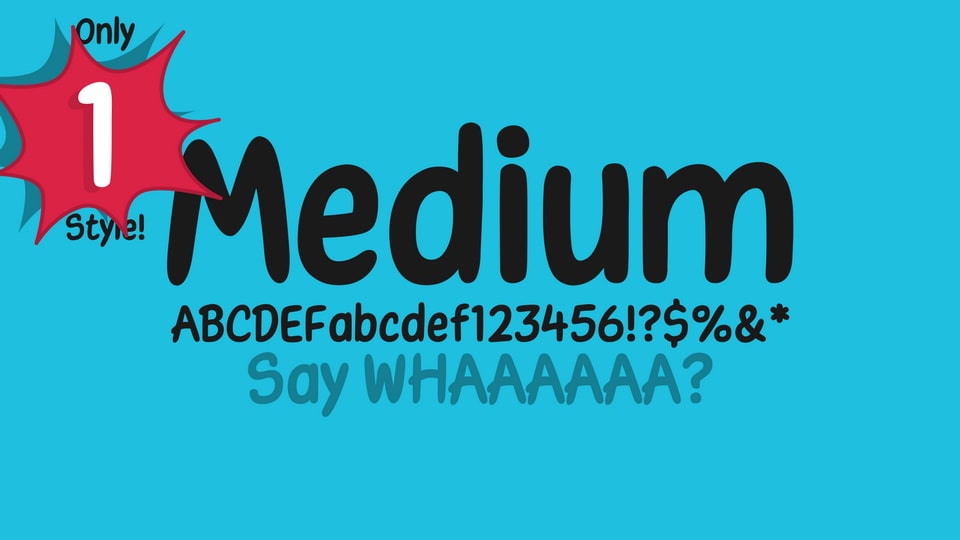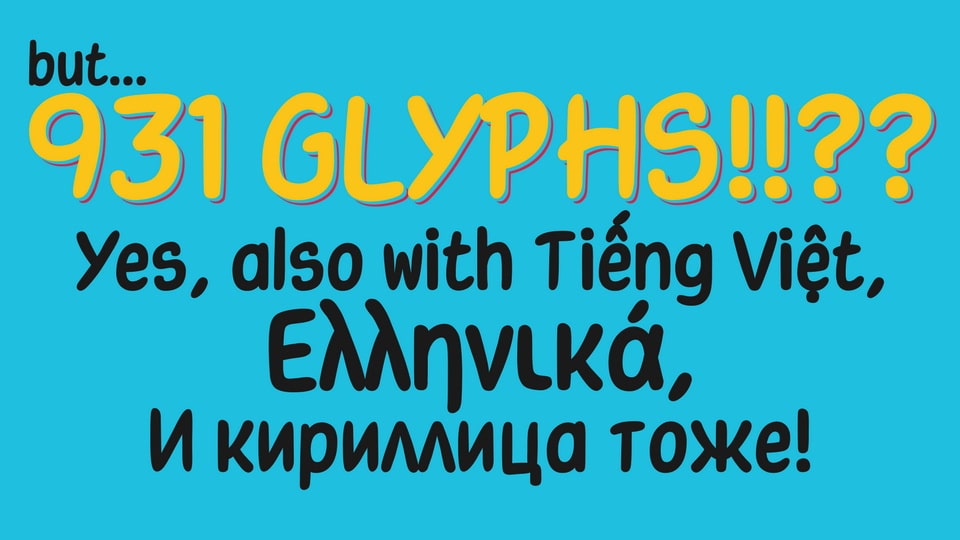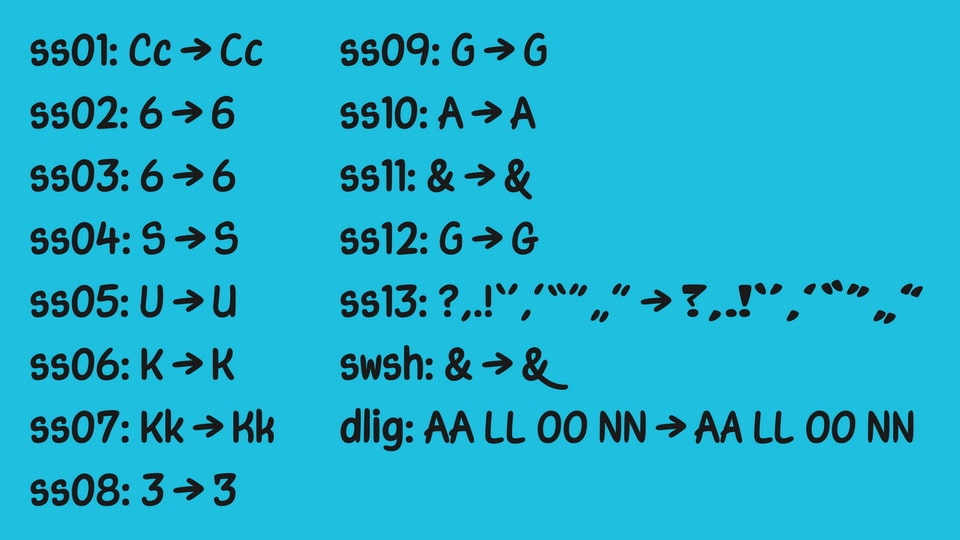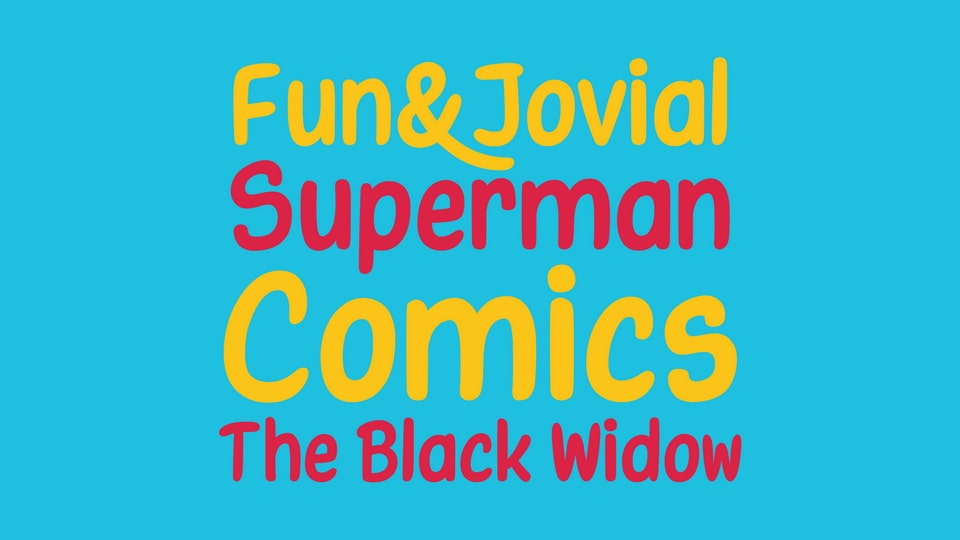
Architun (arr·chi·toon) is a comic book-style font based on the handwriting seen in the image on GitHub.
There’s currently only one weight (Medium) and 931 glyphs, but there will be more weights and more glyphs in the future.